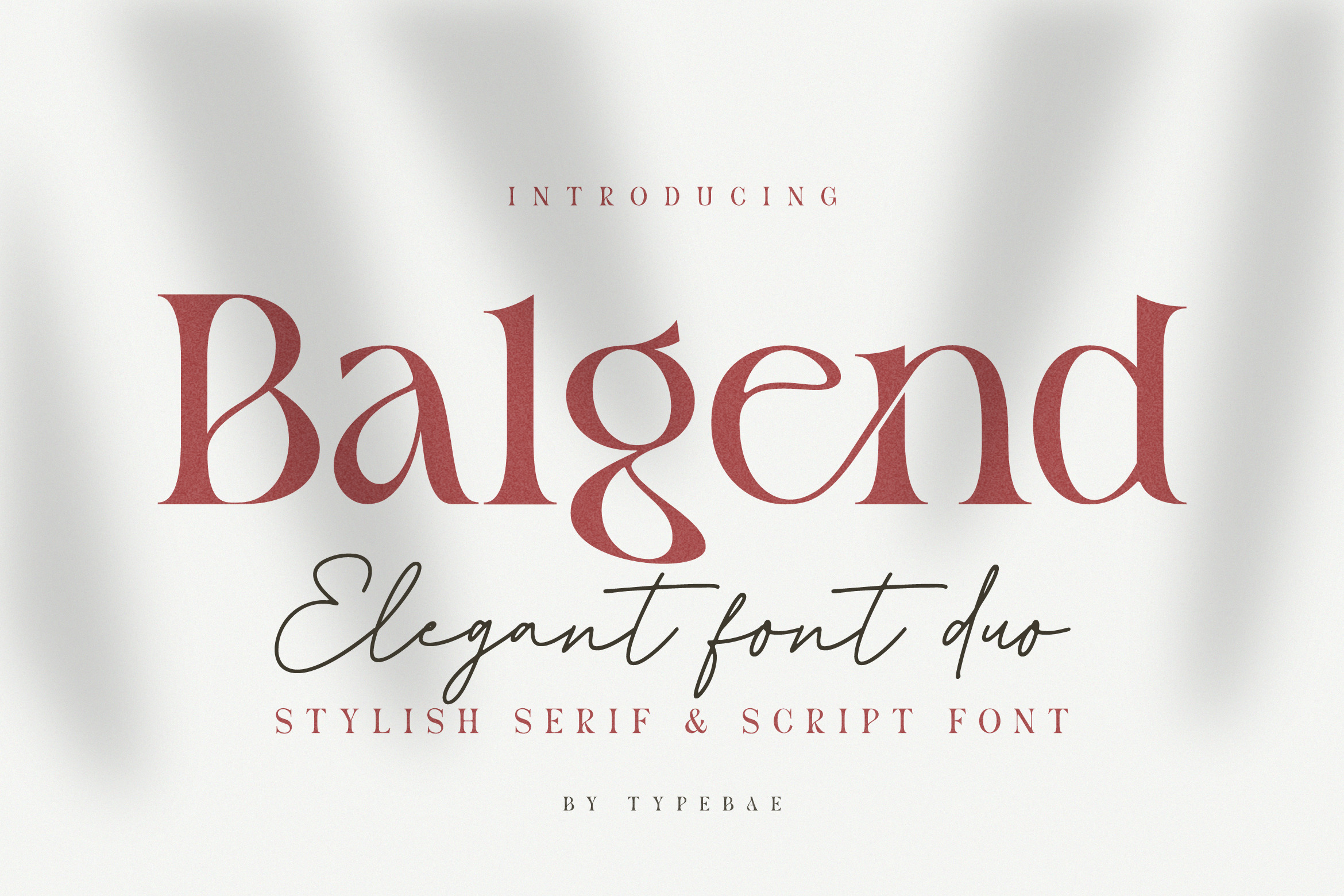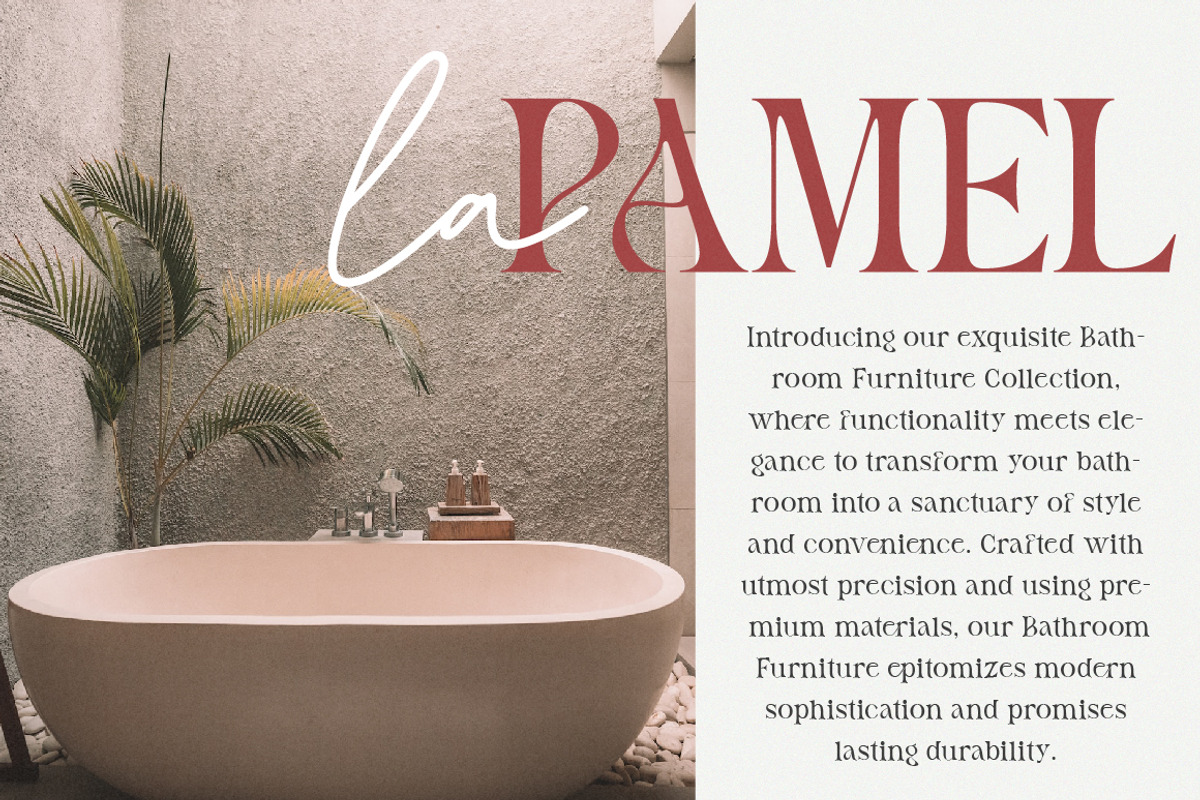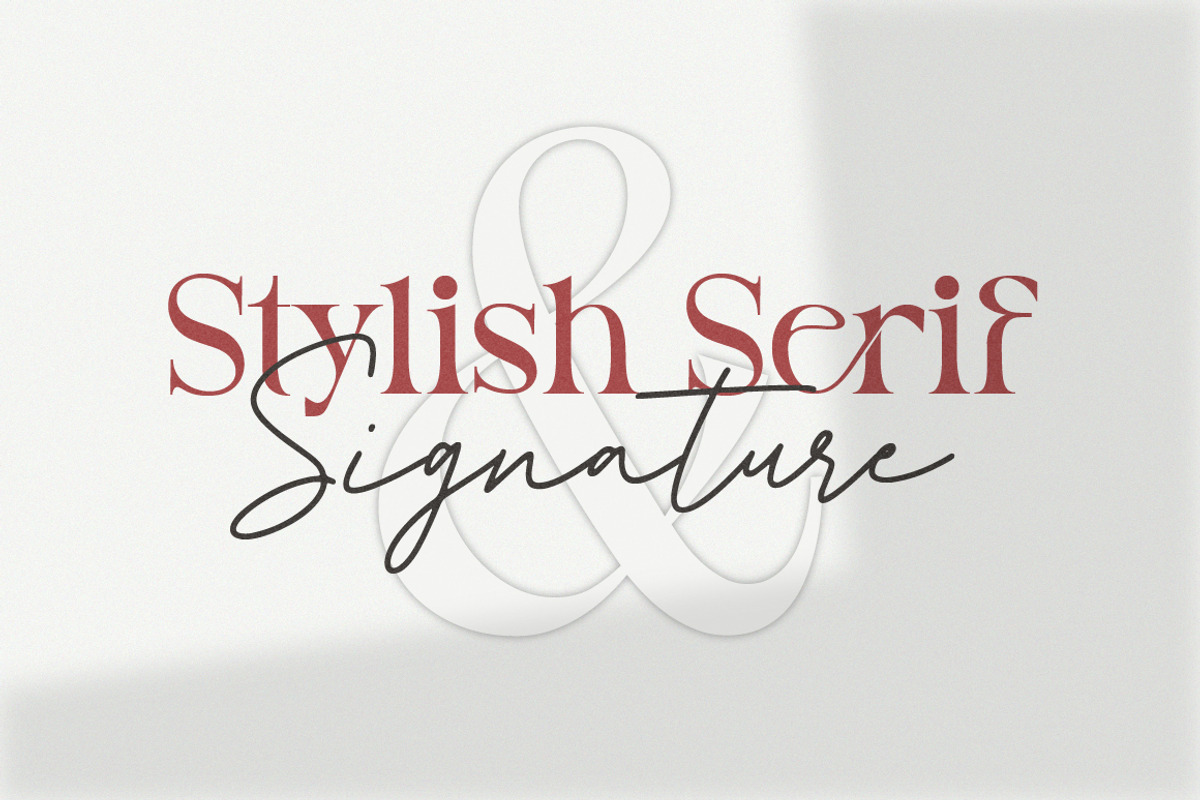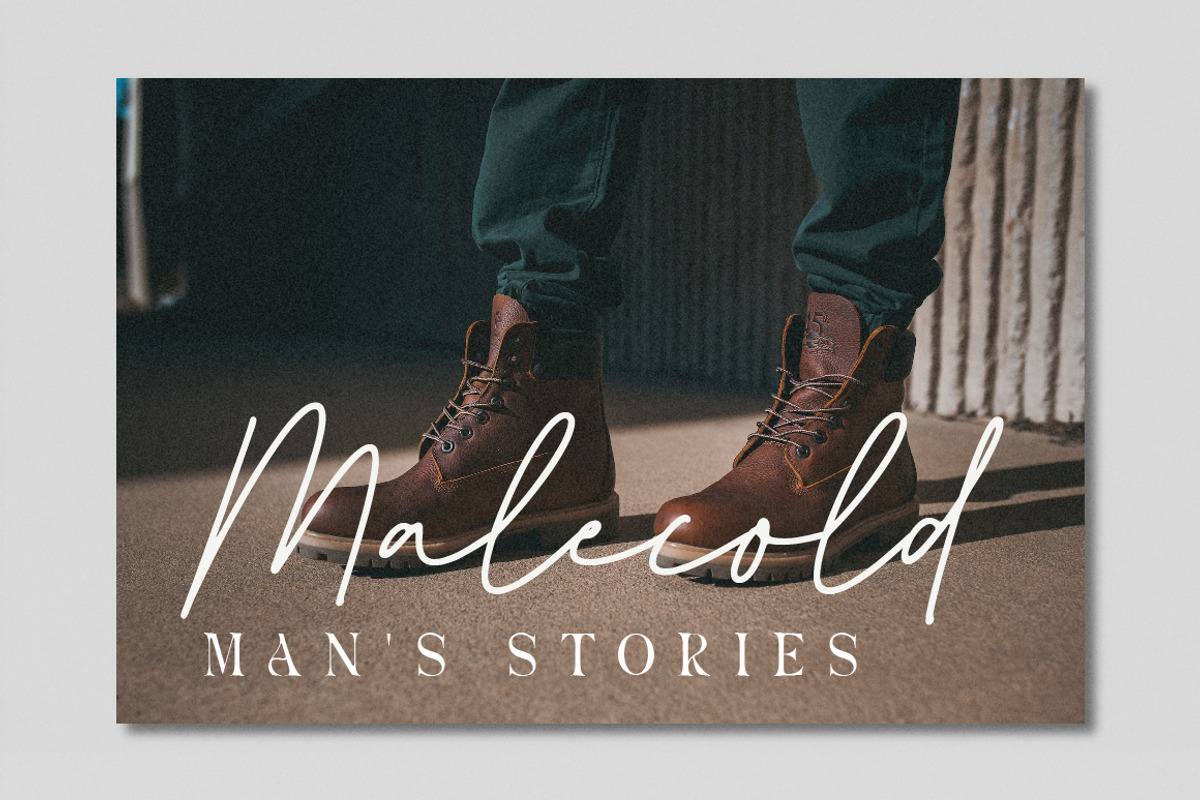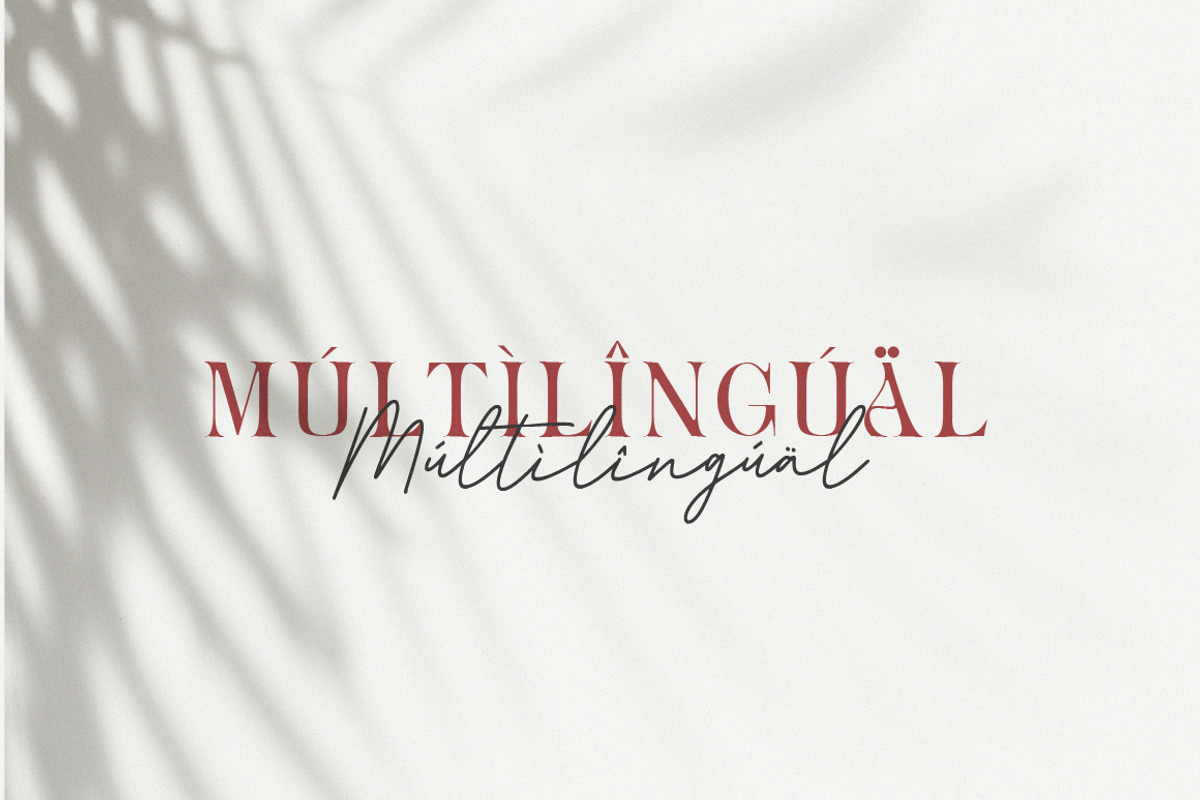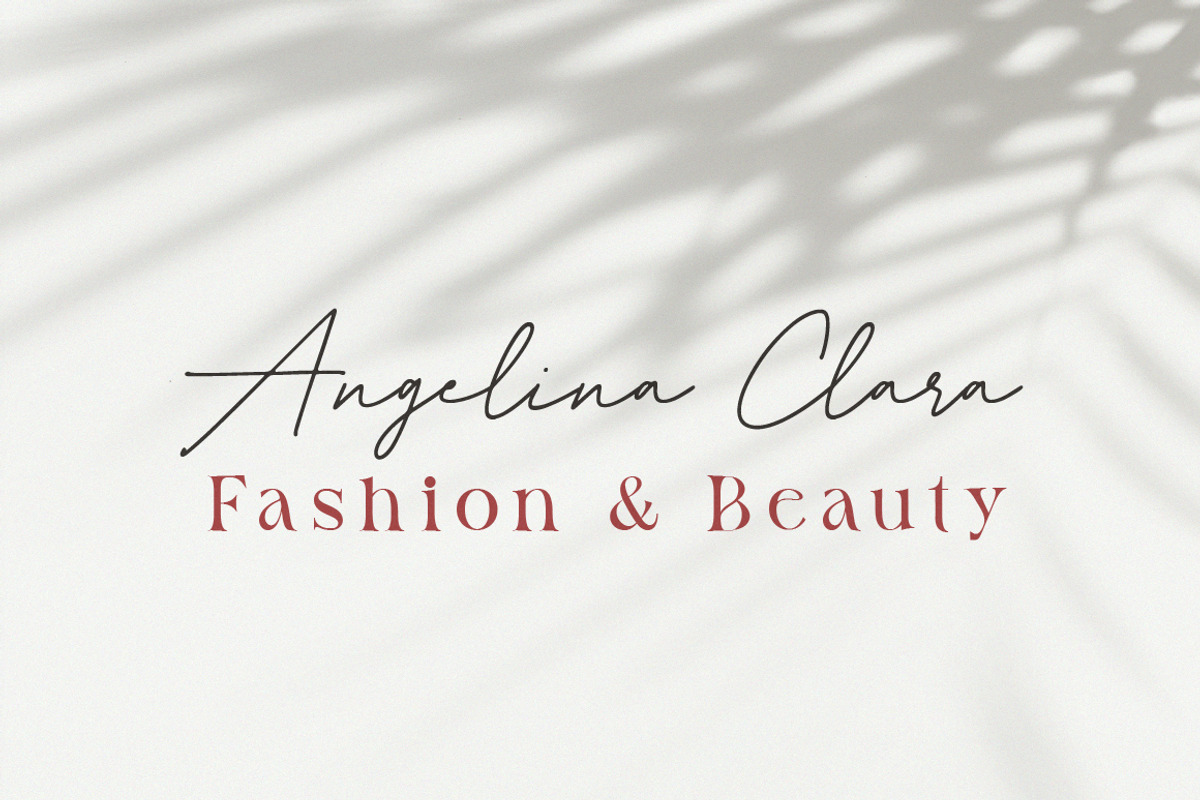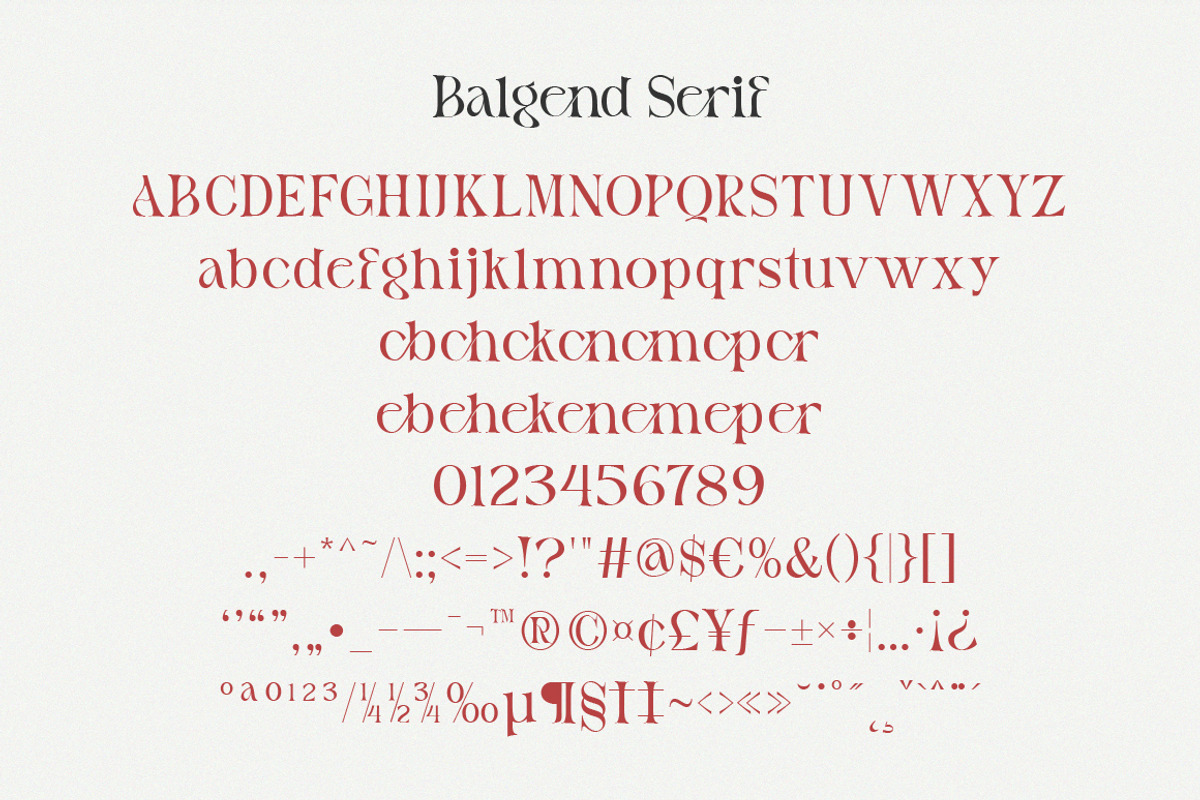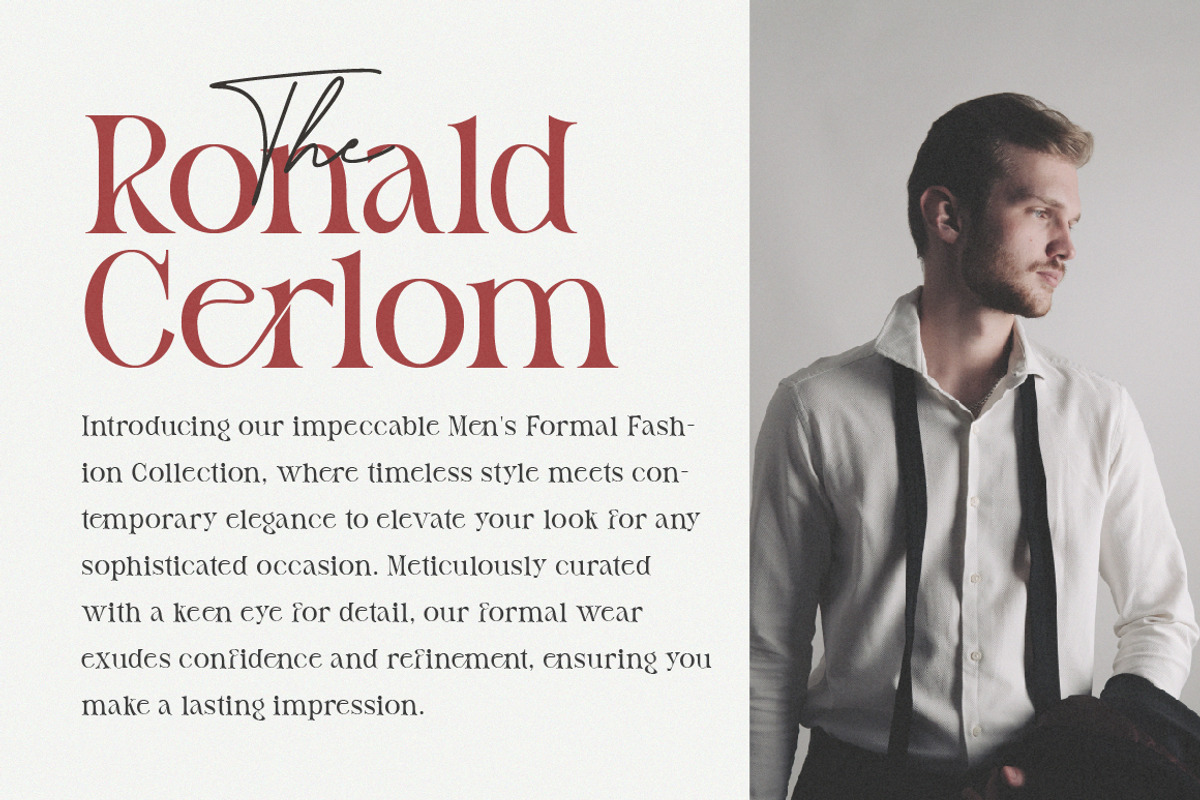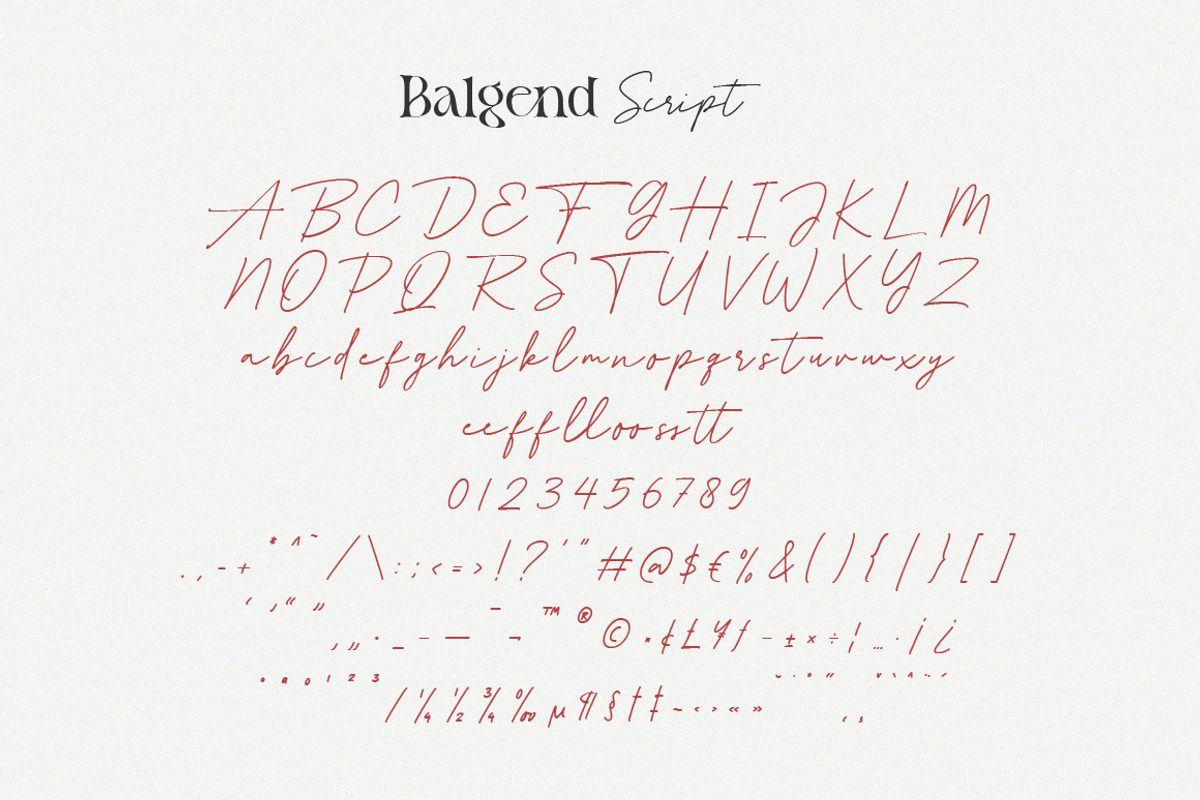
Balgend - Elegant Font Duo
Balgend is a captivating and contemporary serif and script font duo that flawlessly marries sophistication with creativity. With its striking balance of classic serifs and expressive script, Balgend adds a touch of timeless elegance to any design project.
Feature: Ligature, Multilingual and PUA encoded.